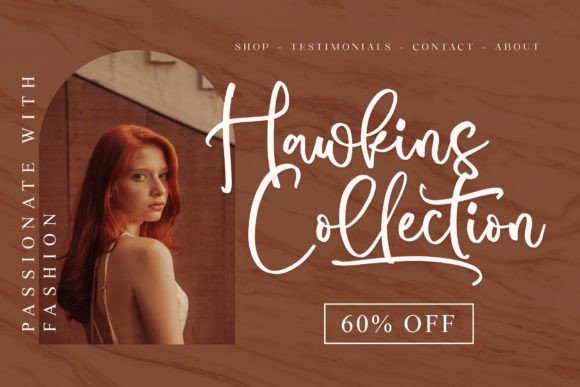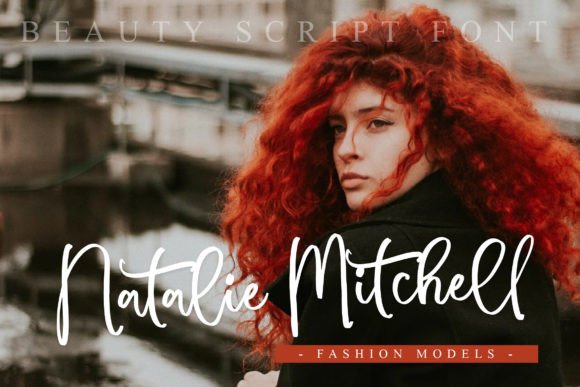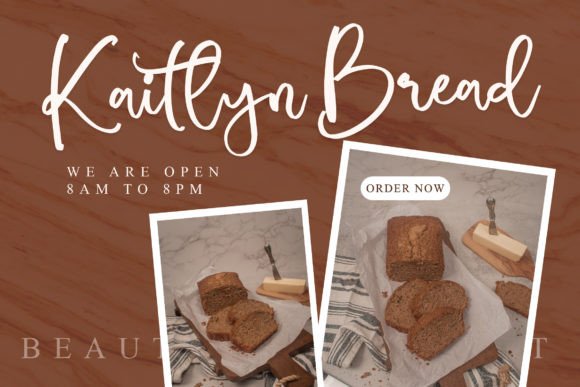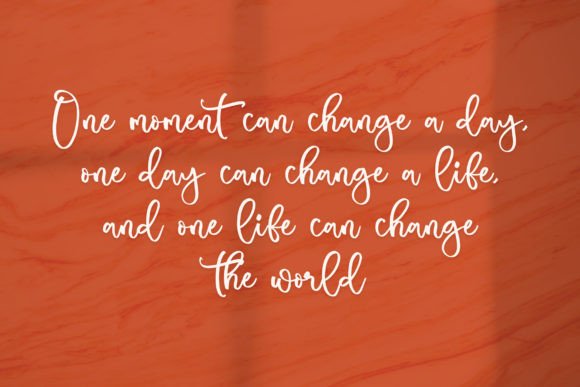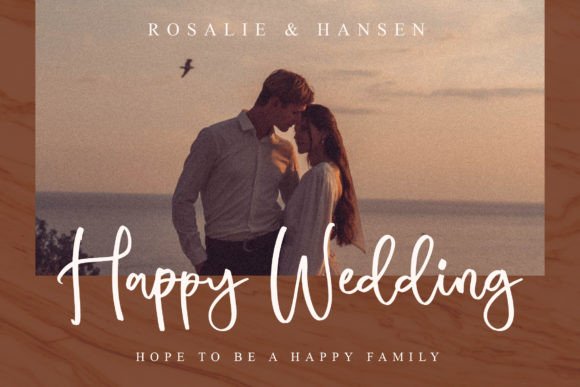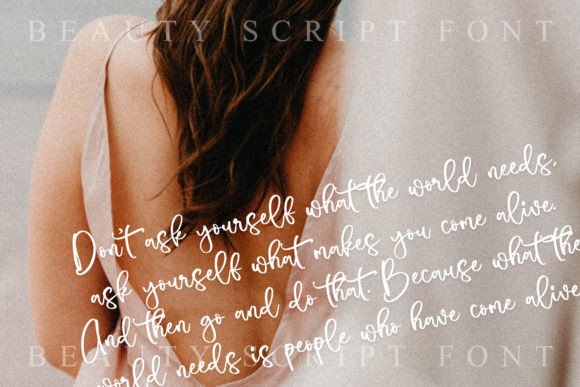
Beverly Font: Elevate Your Designs with Elegant Handwritten Style
Are you looking for a beautiful and elegant font to elevate your designs? Look no further than the Beverly Font. This stunning handwritten font is perfect for a wide range of projects, from logos and branding to homeware designs, product packaging, and more.
What Makes Beverly Font So Special?
Beverly Font is a unique and eye-catching script font that adds a touch of sophistication and elegance to any design. Its beautiful handwritten style makes it perfect for designers and crafters who want to create stunning visual content that stands out from the crowd.
Beverly Font is incredibly versatile and can be used for a wide range of projects, including:
- Logos and branding projects
- Homeware designs, such as stationery and wall art
- Product packaging, including mugs, bottles, and boxes
- Quotes, posters, and flyers
- Shopping bags and T-shirts
- Book covers and name cards
- Invitation cards and greeting cards
- Labels and photography watermarks
- Special events, such as weddings and birthdays
Why Choose Beverly Font?
There are many reasons why Beverly Font is a top choice among designers and crafters. Here are just a few:
- Unique and eye-catching: Beverly Font has a distinctive and elegant style that sets it apart from other fonts.
- Easy to read: Despite its elegant style, Beverly Font is easy to read and understand, making it perfect for body text and headlines.
- Highly versatile: Beverly Font can be used for a wide range of projects, from digital designs to print materials.
- Supports multiple languages: Beverly Font supports multiple languages, making it a great choice for designers who work with international clients.
Tips for Using Beverly Font
Here are a few tips for using Beverly Font in your designs:
- Use it sparingly: Beverly Font is a statement font, so use it sparingly to add emphasis and elegance to your designs.
- Pair it with other fonts: Beverly Font pairs well with other fonts, such as sans-serif fonts and serif fonts. Experiment with different pairings to find the one that works best for your design.
- Experiment with colors: Beverly Font looks great in a range of colors, from bold and bright to soft and pastel. Experiment with different colors to find the one that works best for your design.
Beverly Font is a beautiful and elegant handwritten font that is perfect for designers and crafters who want to elevate their designs. With its unique and eye-catching style, versatility, and ease of use, Beverly Font is a top choice for a wide range of projects. Whether you’re creating logos, branding materials, or special event designs, Beverly Font is sure to impress.